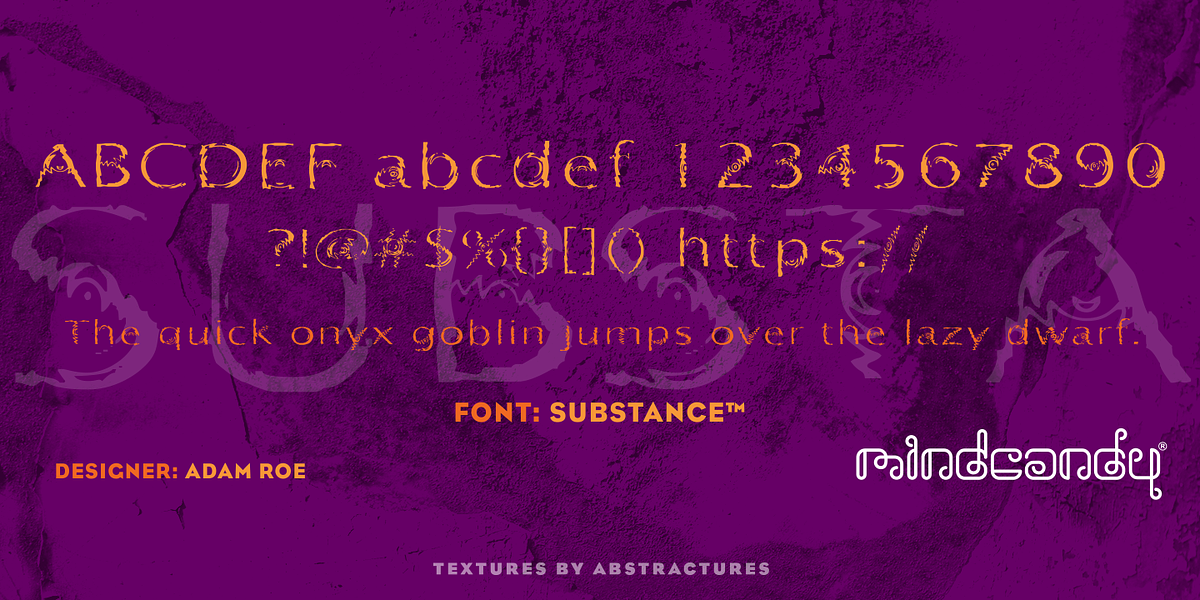
Substance™
This grunge novelty font, designed by Adam Roe, features a textured appearance, making it suitable for designs seeking a raw and edgy aesthetic. Its unique style would be well-suited for branding projects, posters, or alternative media where a non-conventional look is desired.